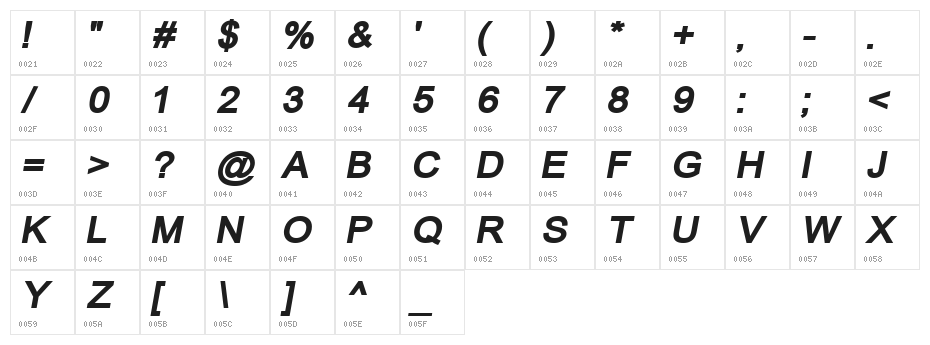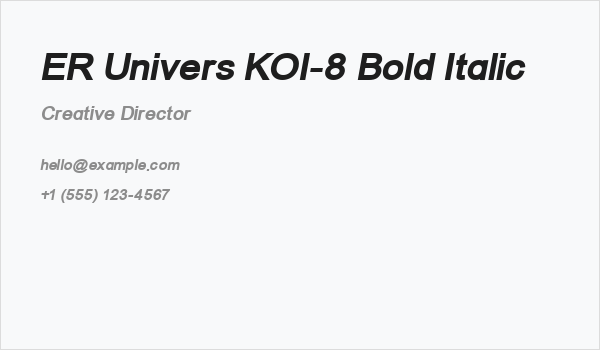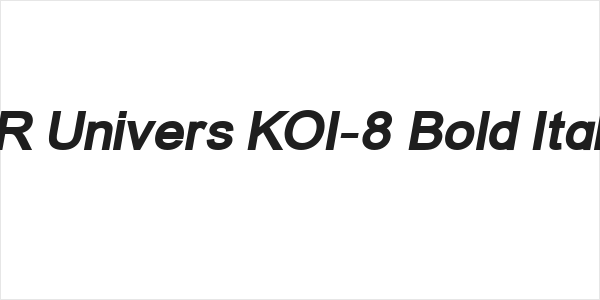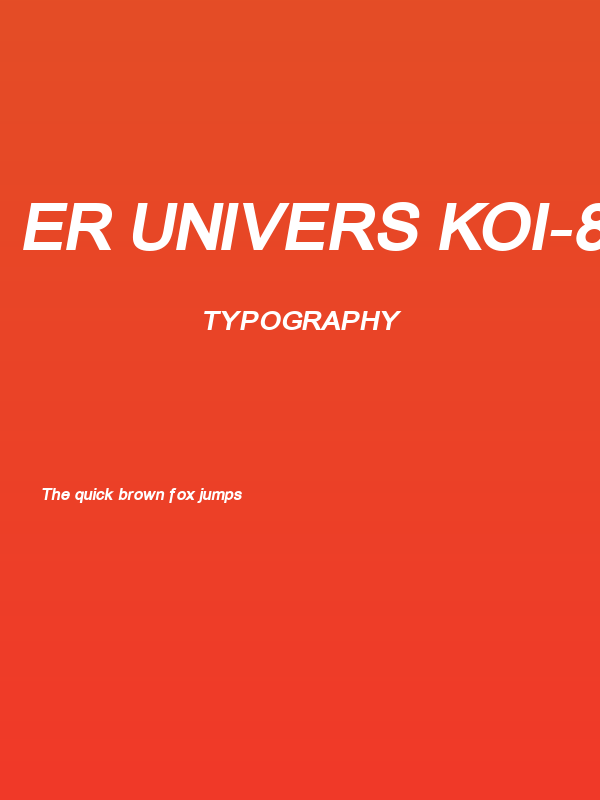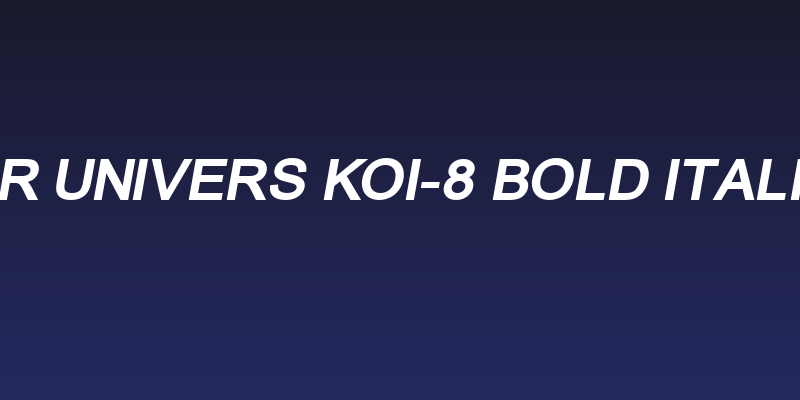
ER Univers KOI-8 Bold Italic Font
ER Univers KOI-8 Bold Italic Description
This font exhibits a bold and italicized style, characterized by its clean and modern sans-serif design. The letters are slightly slanted, giving a dynamic and forward-moving appearance. The strokes are thick and consistent, providing a strong visual impact. The uppercase and lowercase letters maintain a uniform width, contributing to a cohesive look. The numerals are clear and legible, matching the style of the alphabetic characters. Special characters are well-defined, ensuring versatility in various applications. Overall, this font is designed to convey a sense of modernity and professionalism.
| Proposed Projects | Ideal for branding, advertising, headlines, and any project requiring a strong, modern typeface. |